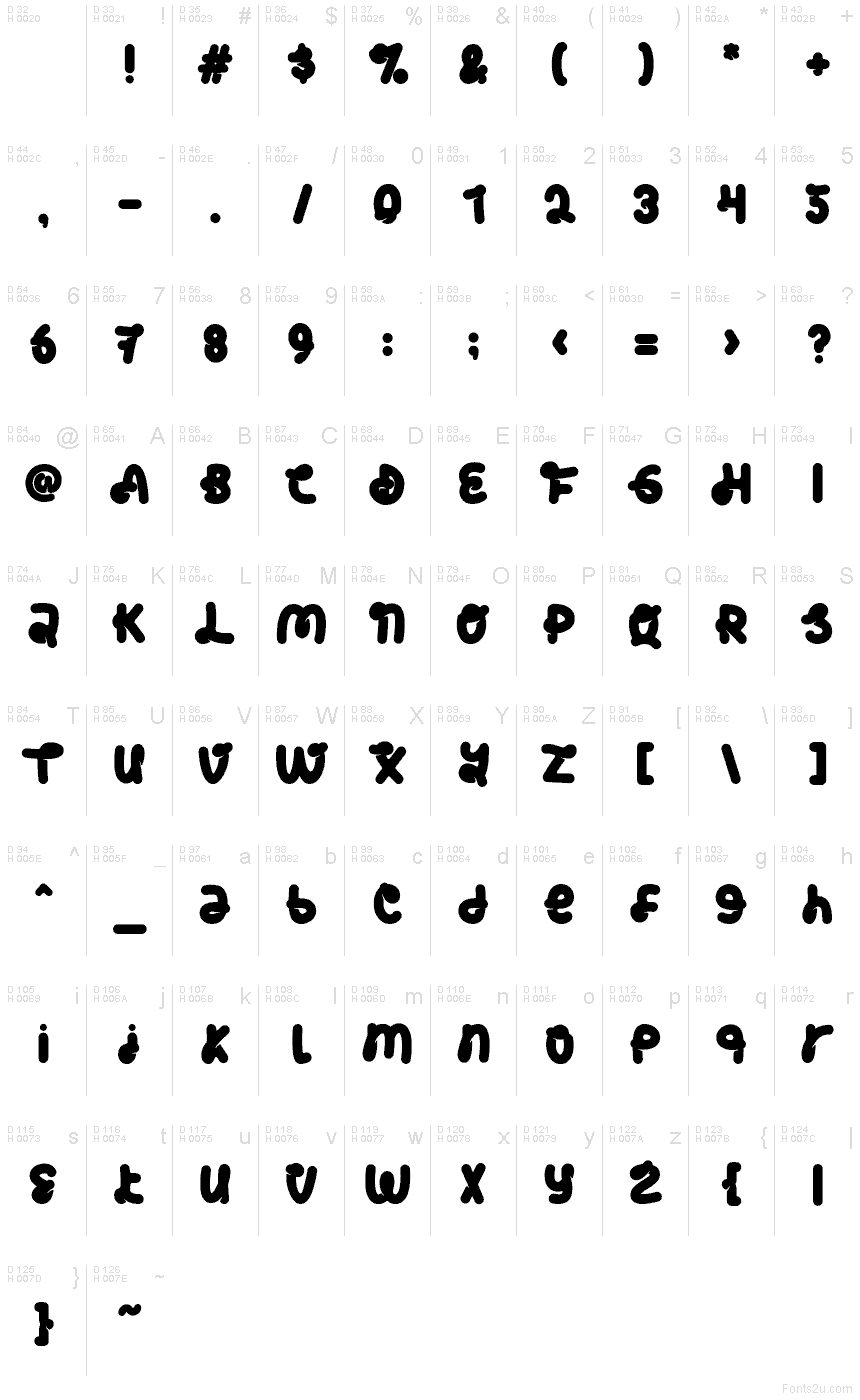
Sweet Kulfi
Sweet Kulfi font by PutraCetol Studio is a cartoon-style bold display typeface with smooth organic shapes and a vibrant retro feel. It is casual and friendly, but more prominently, has a whimsical quality that distinguishes its character. Variety in stroke widths manifests to achieve dynamic letterforms that will keep the eyes entertained for prolonged periods.